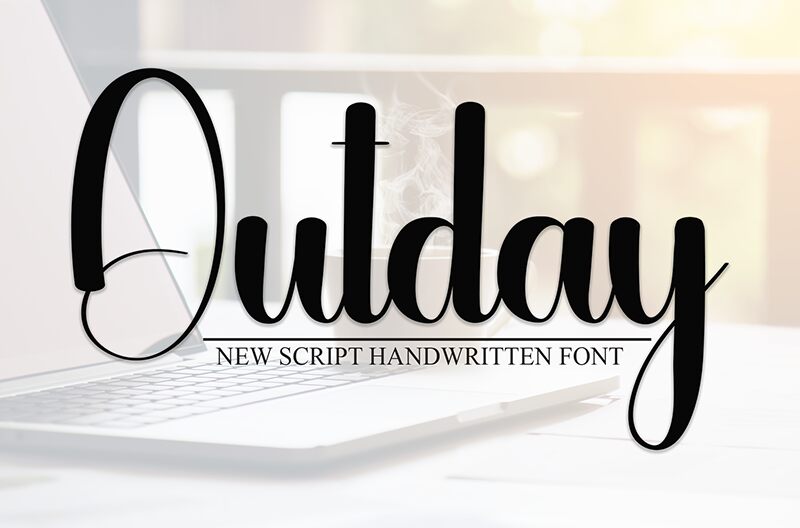
Outday
Outday font by Andi Moz is a free calligraphy font that combines an elegant style with a flowing and sophisticated touch. Except for bringing in elements of classicism, its curvatures showcase signature-like effects which surprise bikers and hikers alike. All caps are available too and will truly make entries noticeable.
Create stylish headings, logos, flyer designs, magazine covers, quotes, promotional material, wedding cards, pictures for social media posts or personal blogs. Apply this modern calligraphic typeface to branding networks or store signs as well!